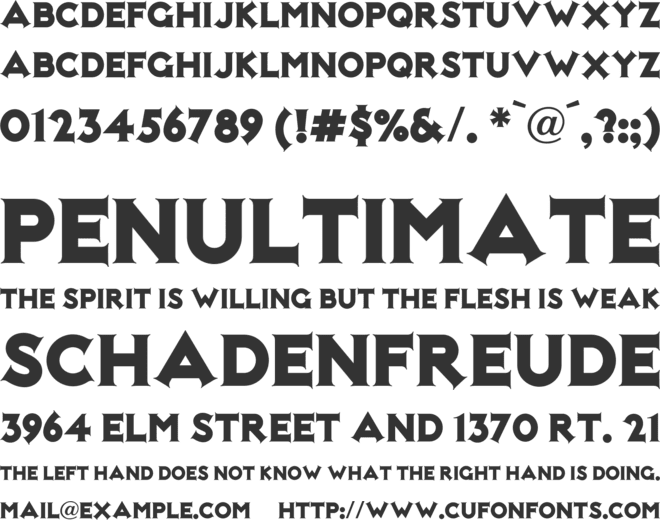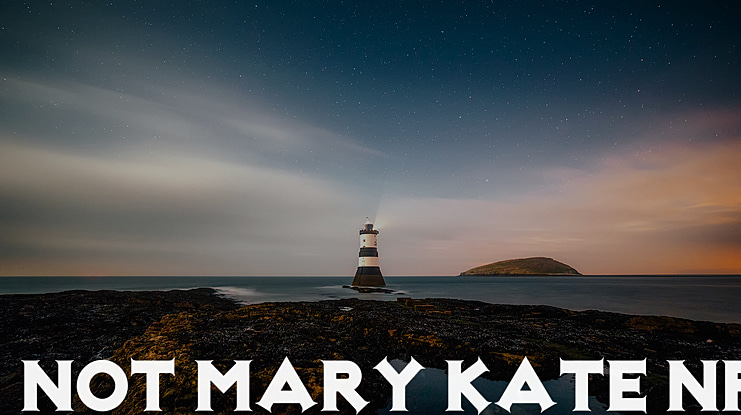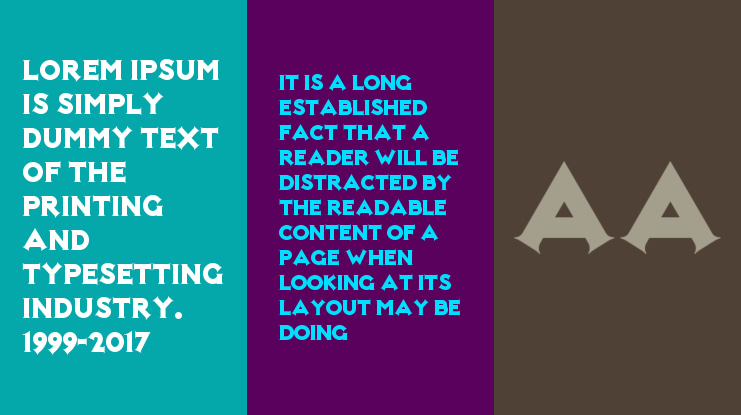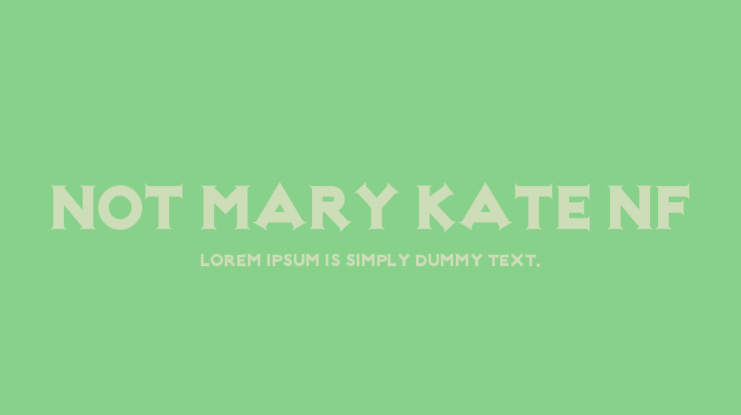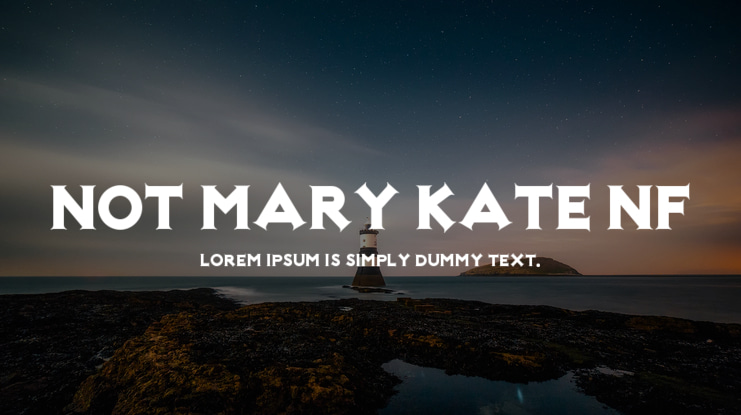
Not Mary Kate NF Font
A longtime favorite of mine, minus the inline it is usually seen with. Its name? Anyone who has a younger sister, preteen nieces or â gulp â preteen granddaughters can tell you that.